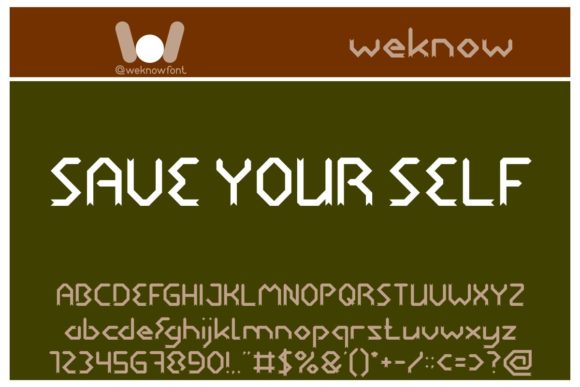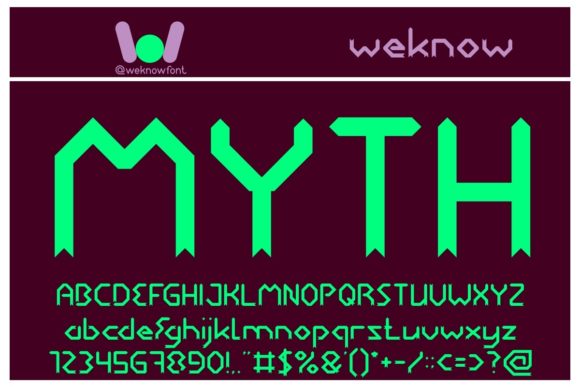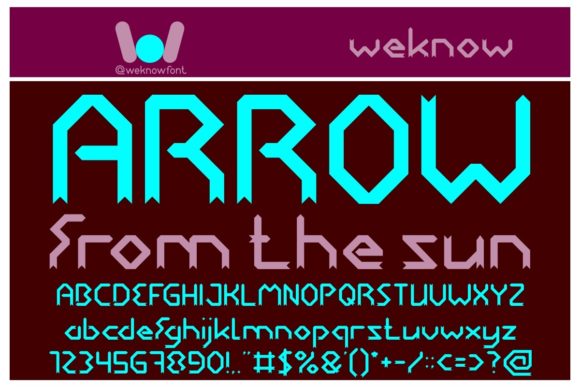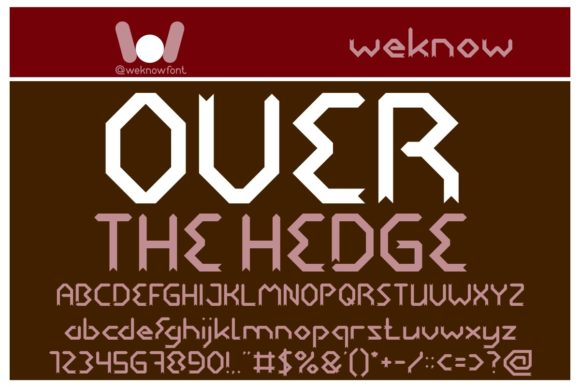
Introduction to Rocket Brother Font
Rocket Brother is a cool, modern display font.
it works incredibly well on various design ideas that require a neat, casual touch .